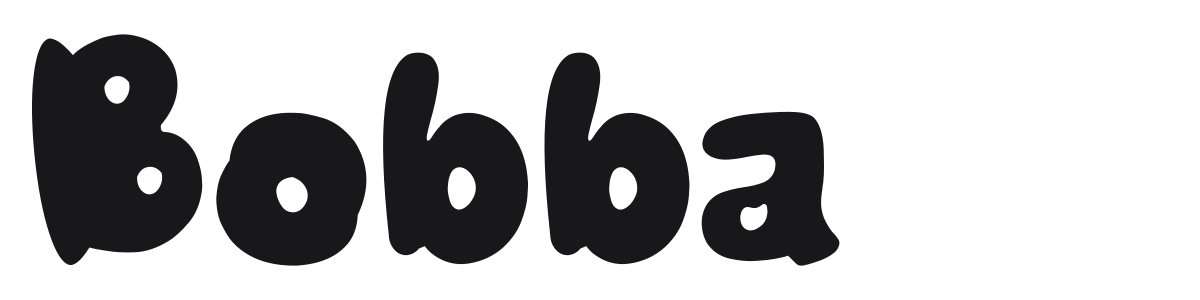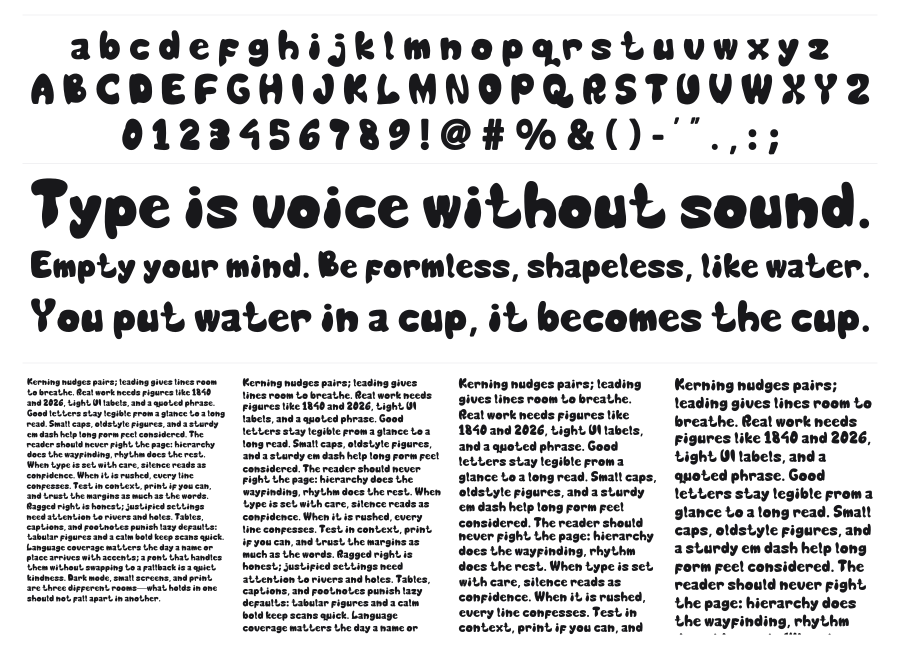
Bobba
Bobba is a heavy, bubbly rounded display font with an exaggerated cartoon personality. Its thick, pillowy strokes and deep notched junctions give each character a playful, inflated look that reads instantly as fun and approachable. Strong for food packaging, kids' branding, and any headline that needs to feel light and energetic.